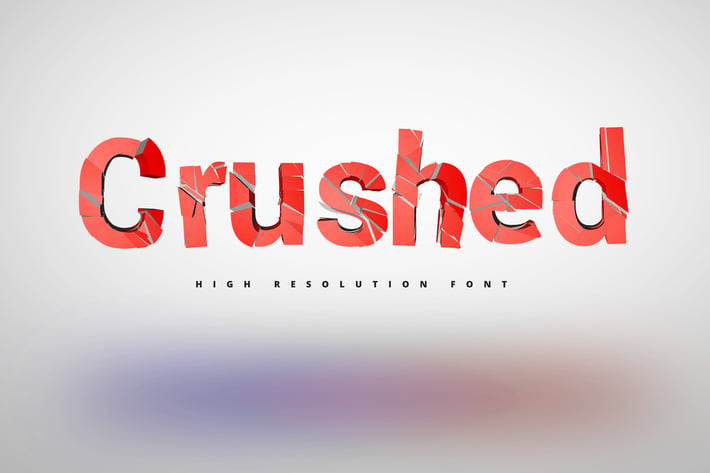
Crushed Font
The Colorful crushed font is ready!
This alphabet comes as 60 individual PNGs with transparent backgrounds so they can be set over any color. 52 letters + 8 extra symbols will give you full option to create an amazing and original product! You can use PNG letters which are in red color or modify it and create your own color composition.